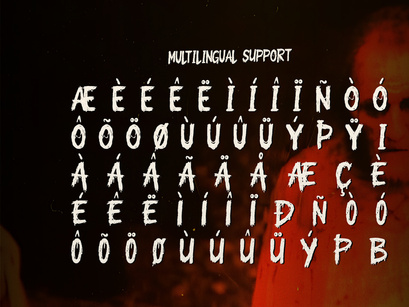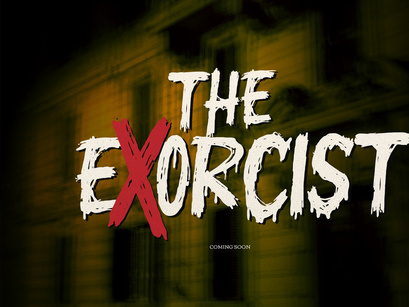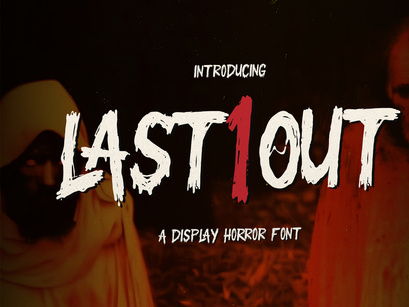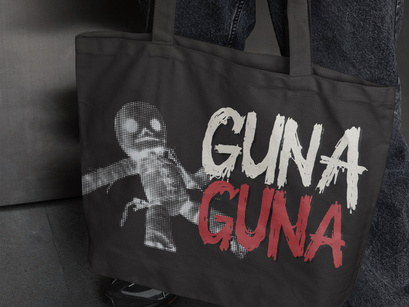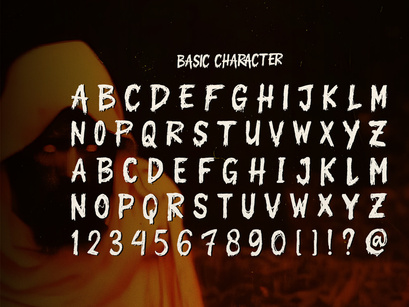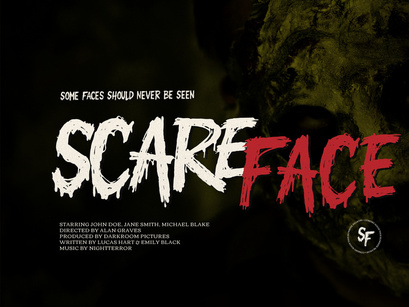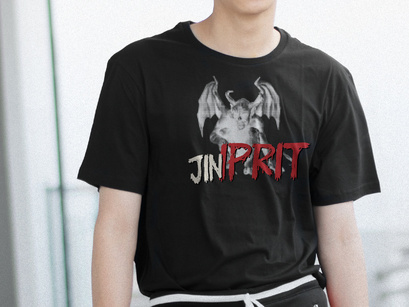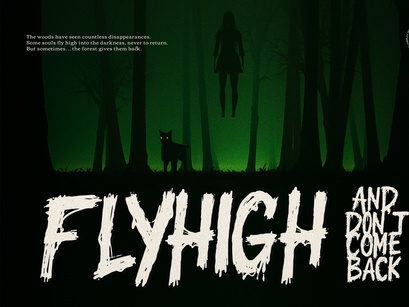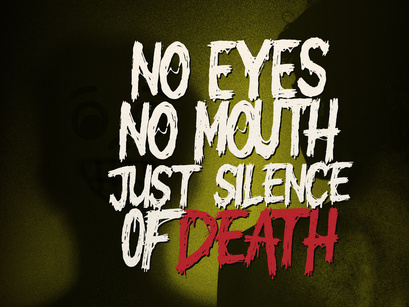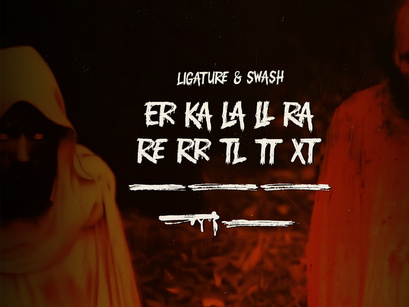
Last One Out | Display Horror Font
Last One Out | Display Horror Font, from Gracetypestudio, suitable for any projects such as: logos, branding projects, homeware designs, product packaging, mugs, quotes, posters, shopping bags, t-shirts, book covers, name card, invitation cards, greeting cards, label, photography, watermark, special events, and all your other lovely projects that need a Display Horror taste.